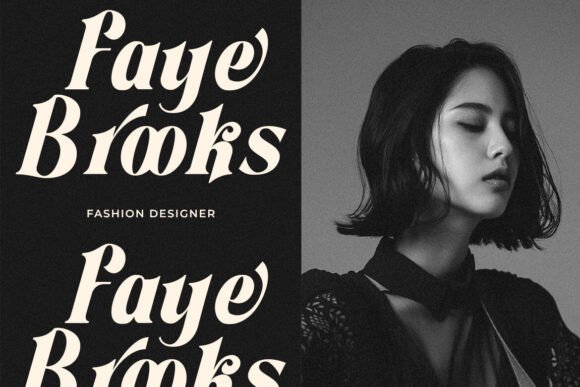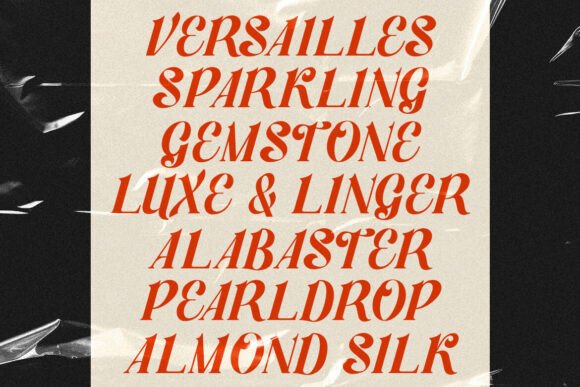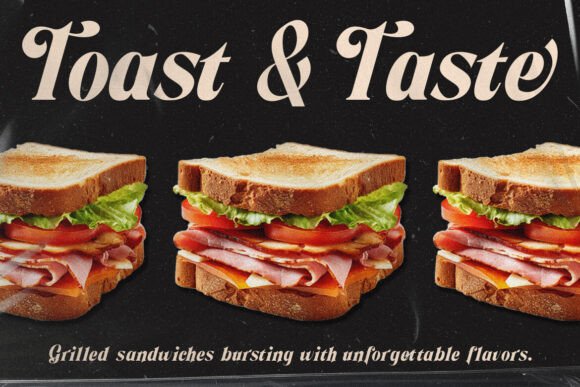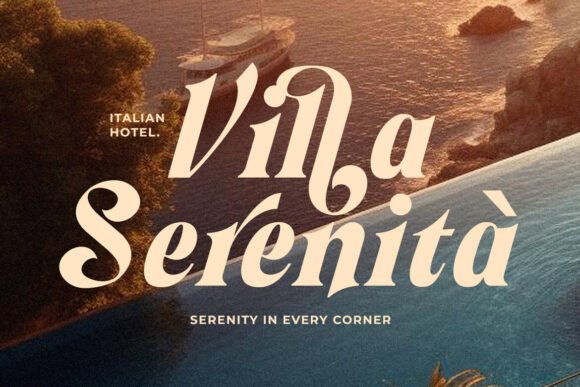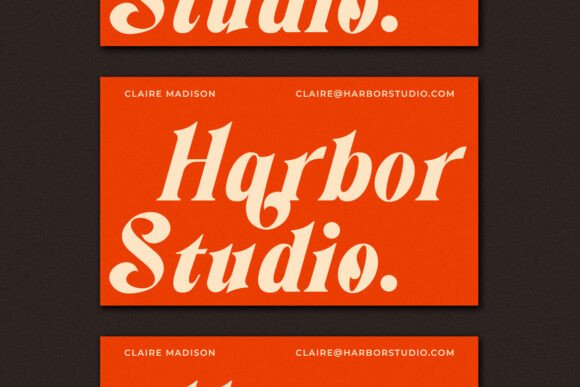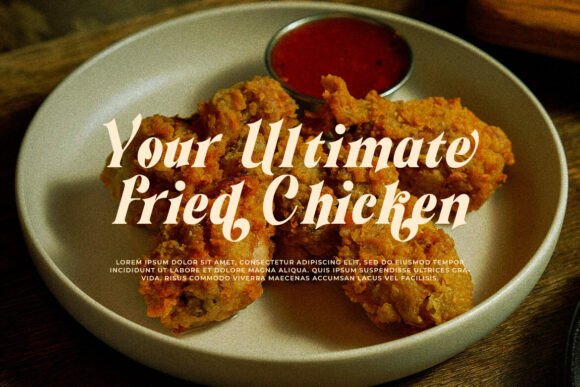
Introduction to Rahayoe Font
Rahayoe is an elegant cursive-inspired font designed to bring a touch of sophistication and aesthetic style to any project.
Its flowing, slanted letterforms evoke a sense of fluidity and graceful movement, making it ideal for designs that require a soft yet contemporary feel This aesthetically pleasing italic font exudes a refined, artistic feel, perfect for creative projects that want to make a lasting impression.
Key Features of Rahayoe Font